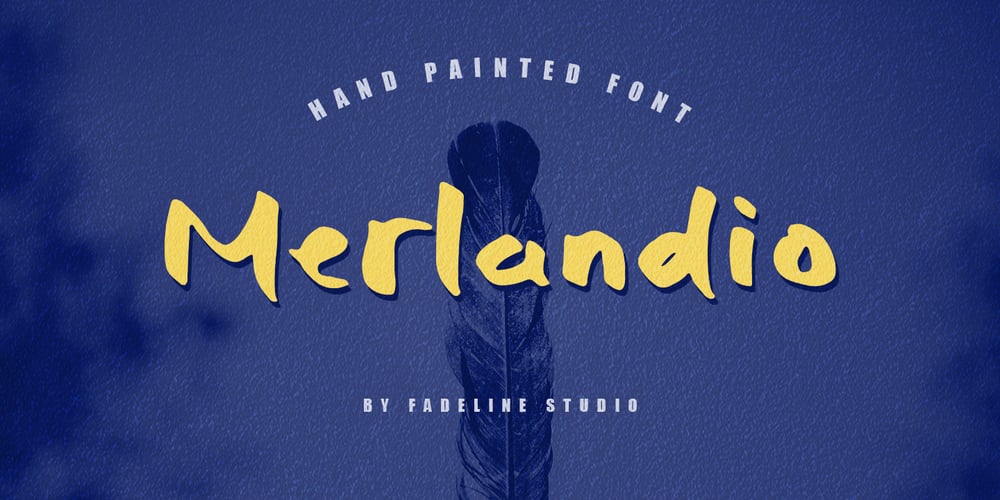
Merlandio Font Family was designed by Juni Fadil Putra and published by FadeLine Studio. Merlandio contains 1 styles and family package options. Introducing! Merlandio is a hand painted font with a style natural, sweet and simple. Made with great care to provide the natural and modern elements. This font will look great if used single even with other pairing fonts. The great thing about this font is you can find some style when you use it, examples such as natural handwriting style, unique, simple, elegant, and bold.